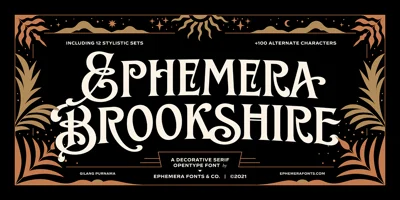
EFCO Brookshire Font
EFCO Brookshire Font is perfect for elegant wedding invitations, luxury brand logos, sophisticated restaurant menus, high-end fashion magazines, premium product packaging, exclusive event posters, upscale business cards, and boutique store signage.
This font is exciting because it combines classic elegance with modern sophistication, featuring beautifully crafted letterforms that exude luxury and refinement. The EFCO Brookshire Font delivers exceptional readability while maintaining an air of exclusivity that captures attention and elevates any design project to professional standards.
The EFCO Brookshire Font family includes multiple weights and styles: Regular, Bold, Light, Italic, Bold Italic, Condensed, Extended, and Outline versions, providing designers with comprehensive typography options for versatile creative applications.